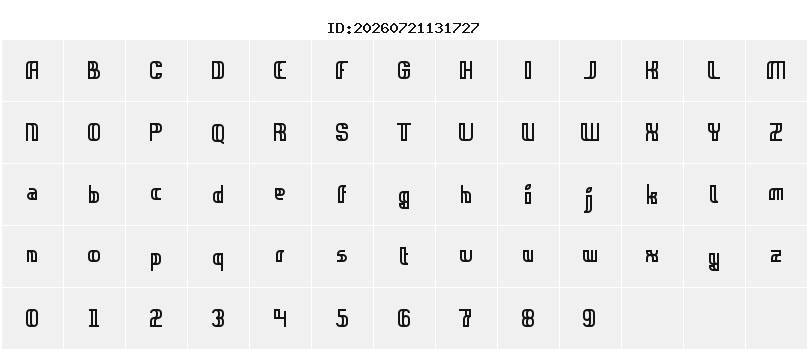
Field Day Preview
• Font Name: Field Day
• Designer: Paul Bokslag
About Field Day.otf
Field Day.otf is a modern, elegant sans-serif font designed for ultimate readability and visual harmony. Perfect for branding, headlines, web design, and print materials.